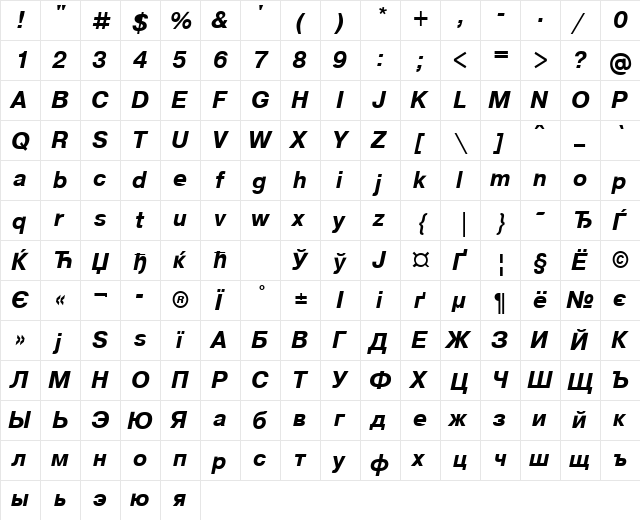
ArtsansC BoldItalic
Design Context for ArtsansC Typeface
ArtsansC takes a measured approach to typography — its balanced proportions and neutral character make it a reliable workhorse for both digital and print work. The dynamic lean of this cut emphasises speed and emphasis in any layout. Its bold stroke weight gives it real presence on the page.
Pro Tip: Use ArtsansC for emphasis, pull quotes, and subheadings where its slanted energy can add rhythm to the layout.